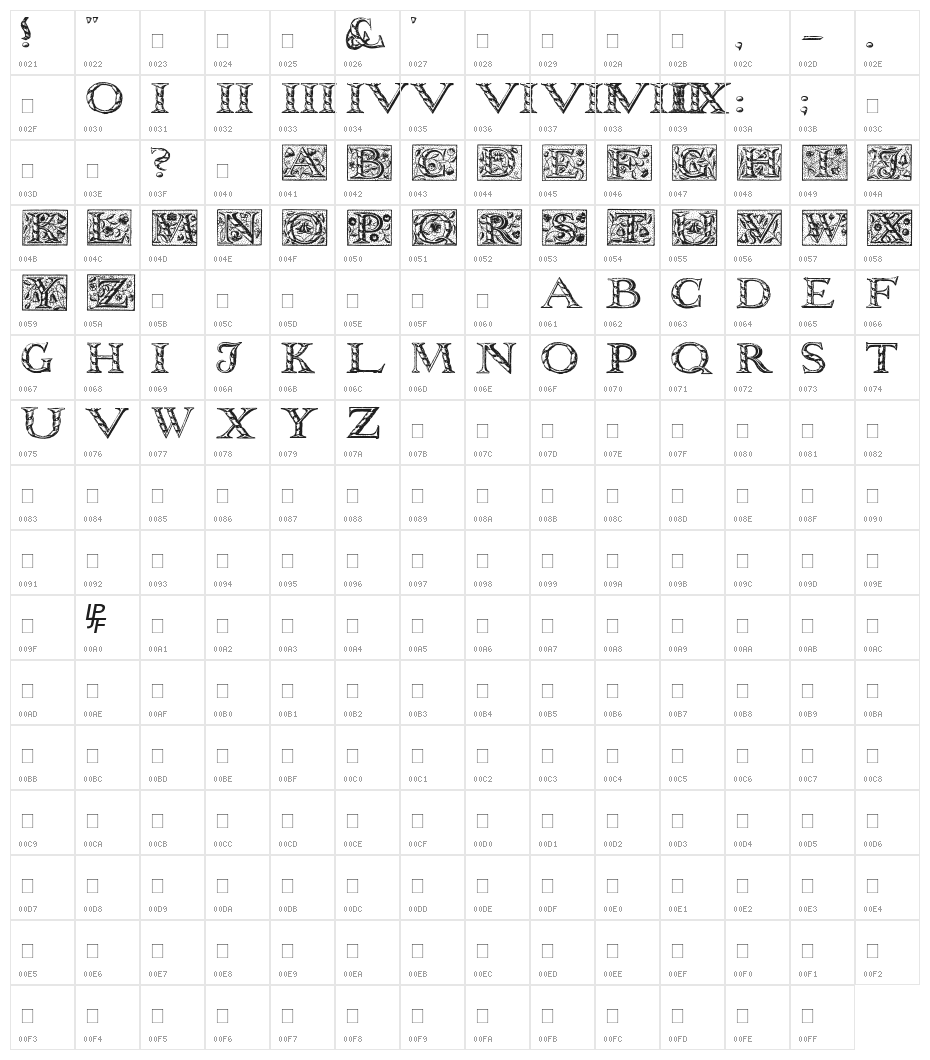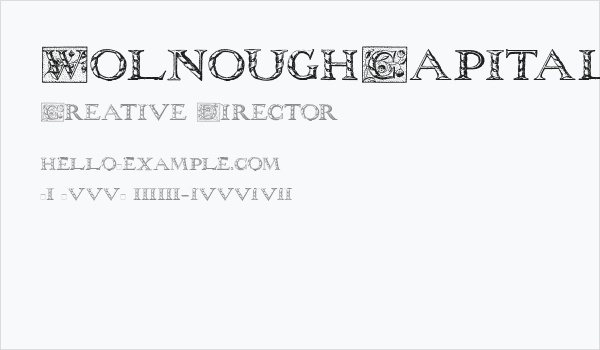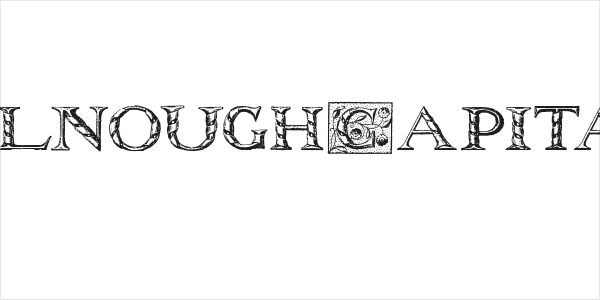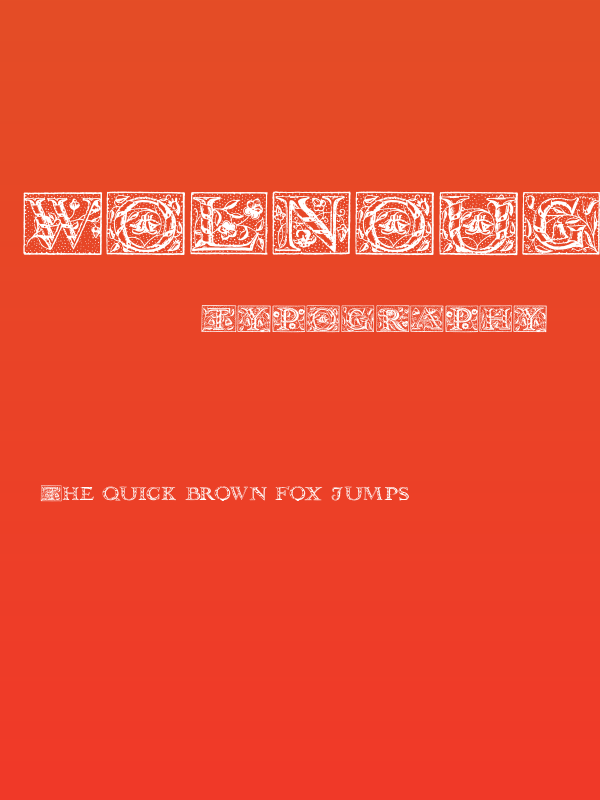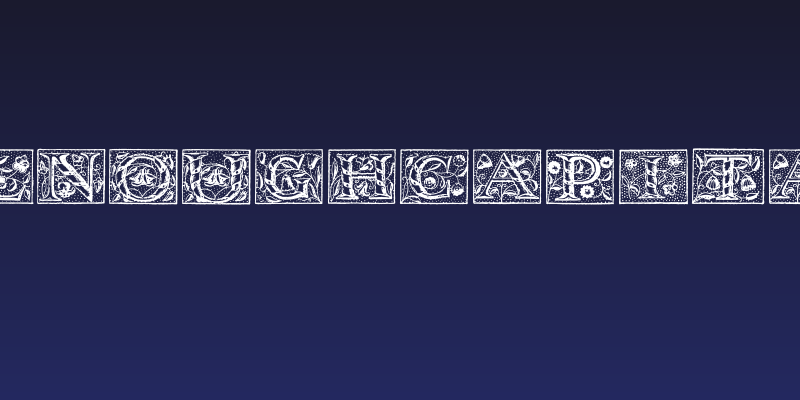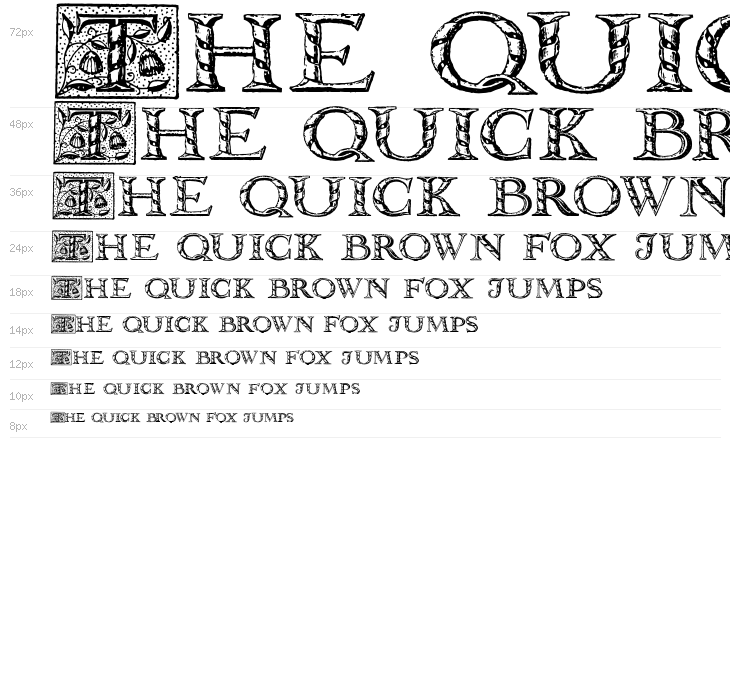
WolnoughCapitals Font
WolnoughCapitals Description
This font features an ornate and decorative style with intricate detailing within each character. The uppercase letters are bold and commanding, with elaborate embellishments that give a sense of historical or vintage flair. The characters are enclosed in a square frame, adding a structured appearance. The font's design is reminiscent of medieval or Gothic influences, making it highly suitable for projects that require a touch of elegance and sophistication. The special characters maintain the same decorative style, ensuring consistency across all glyphs.
| Overall Style | Vintage |
| Proposed Projects | Ideal for use in historical-themed projects, book covers, invitations, or branding that requires a classic and sophisticated touch. |